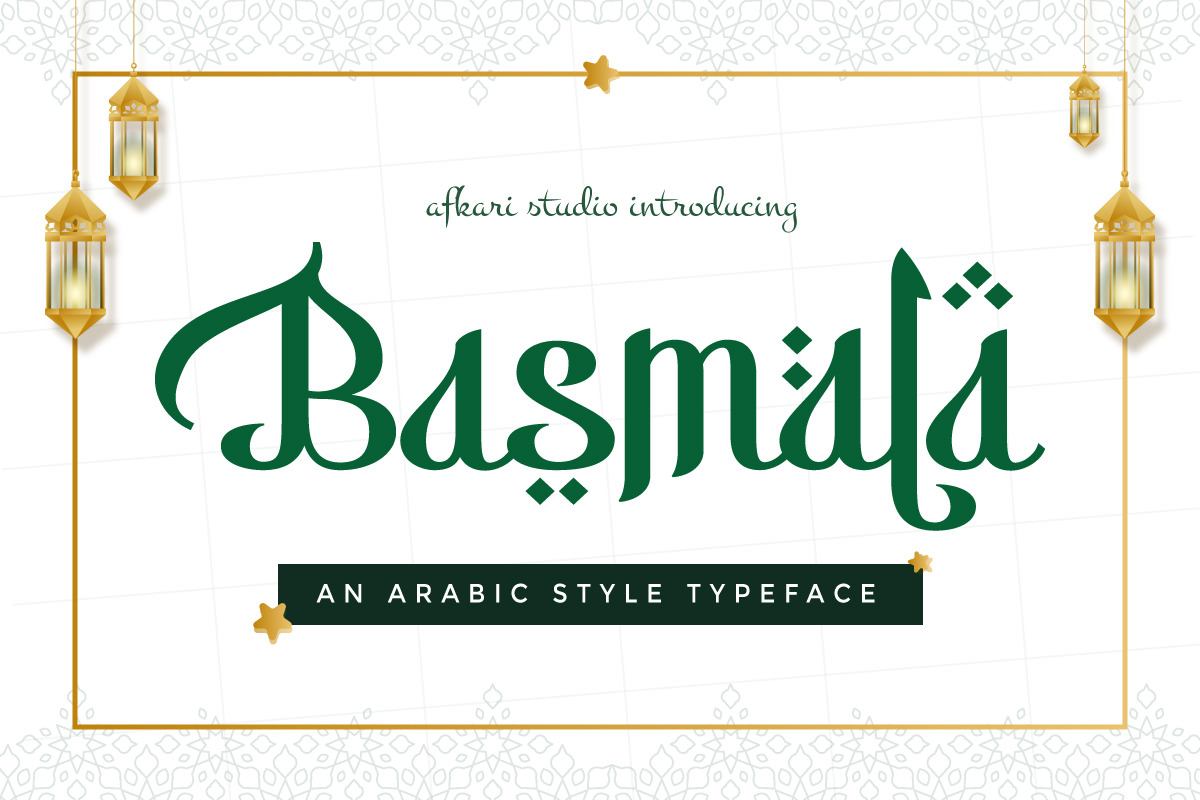
Basmala Font Free Download is a beautifully crafted Arabic-style typeface that captures the essence of Middle Eastern calligraphy with a modern twist. Perfect for Ramadan designs, Islamic event posters, logo branding, and cultural packaging, Basmala brings tradition and elegance into every letterform.
Its flowing curves and ornamental details make it ideal for projects that aim to evoke spirituality, heritage, and artistic beauty. Whether you're working on a mosque flyer or a halal product label, Basmala adds authenticity and sophistication. Basmala Font Free Download gives you the chance to try this font in personal projects before purchasing a license for commercial use.
Celebrate tradition and design with Basmala — an Arabic-style font that speaks with cultural grace and modern impact.